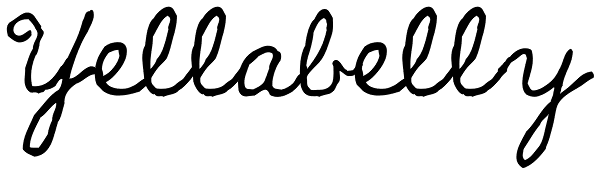
Yellabelly
Being a lefty makes it challenging to write in cursive. Unlike righthanders who pull the pencil across the page, lefties must push the pencil as they write. As a result, the letterforms created by pushing instead of pulling the implement are...
Yellabelly Font